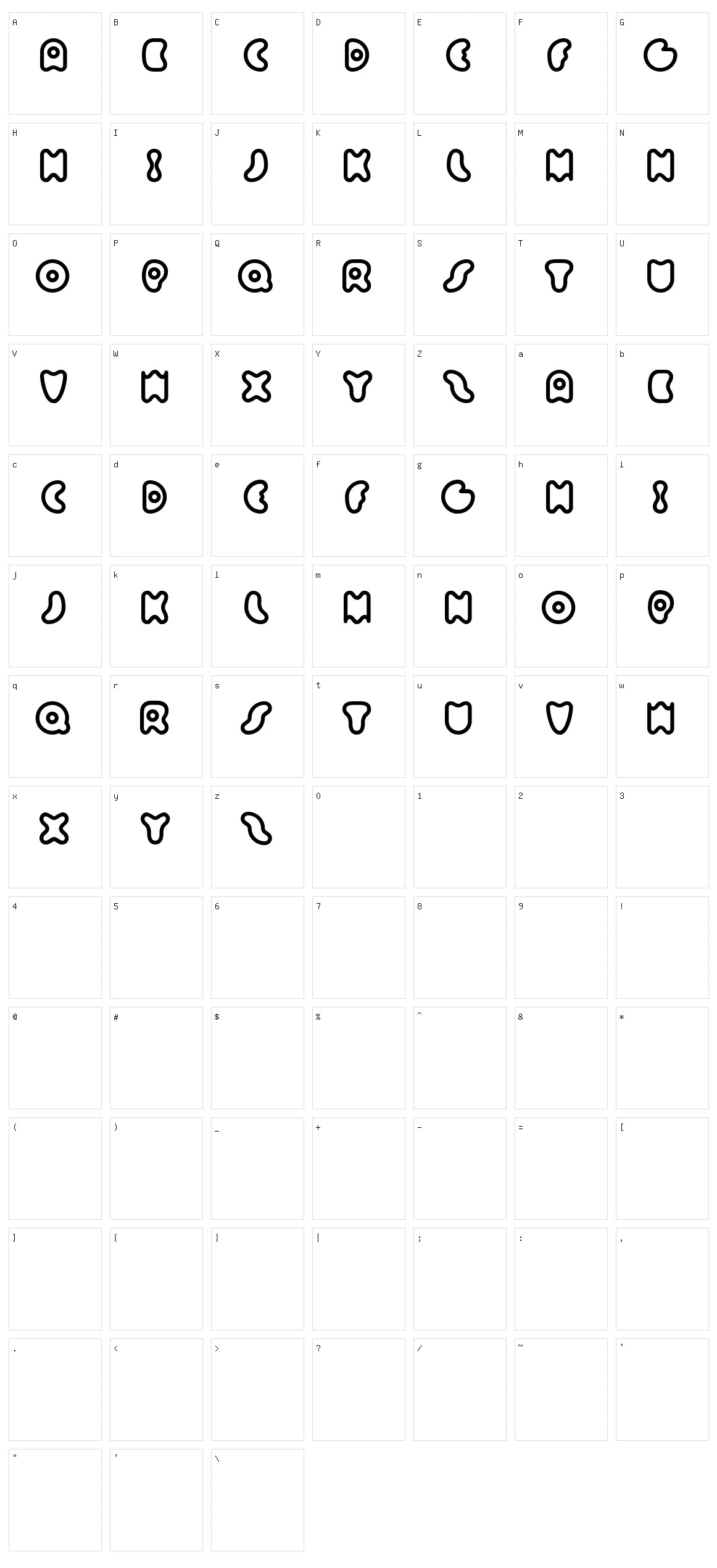
The free font Sixty Queens is carefully designed by Benoît Sjöholm, showcasing a thoughtful balance of creativity and usability and falls under the Groovy font style. When you download the ZIP file, it contains only 13.3 KB of font files, making it lightweight and quick to download. Please review the license details below to understand permitted usage and distribution rights. If license information is not available, we recommend using this font for personal projects only or contacting the author directly for commercial usage permissions.